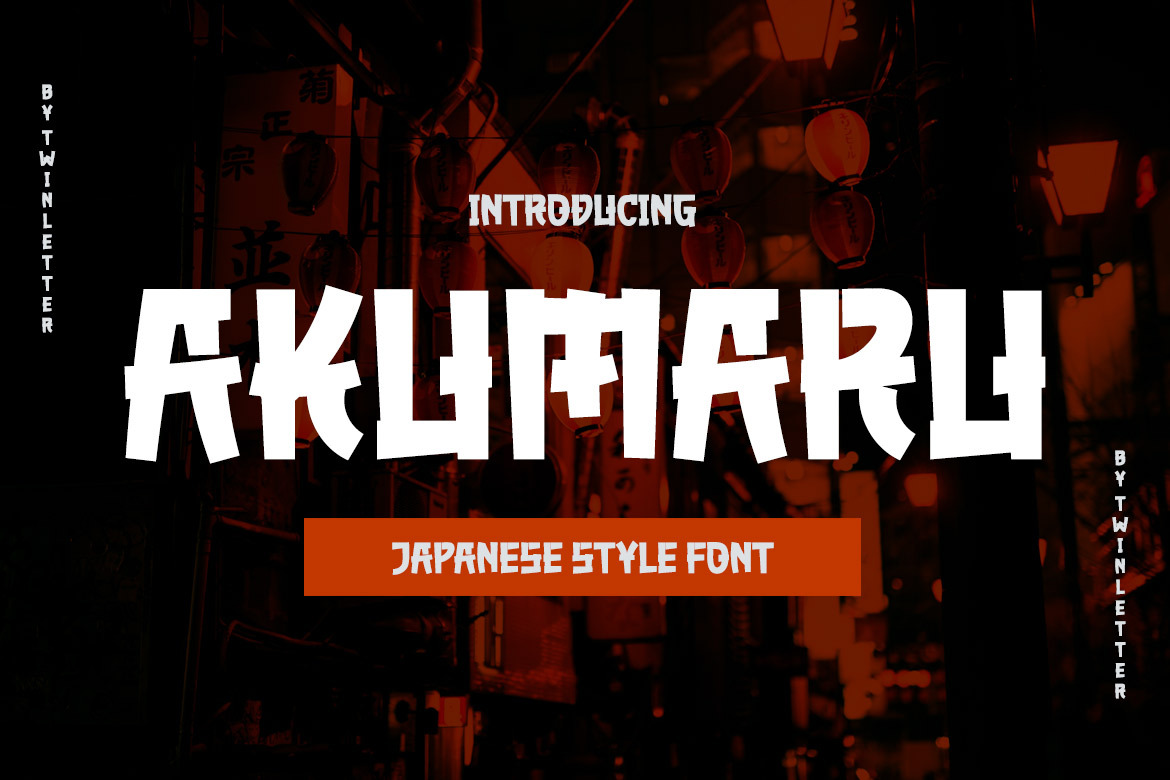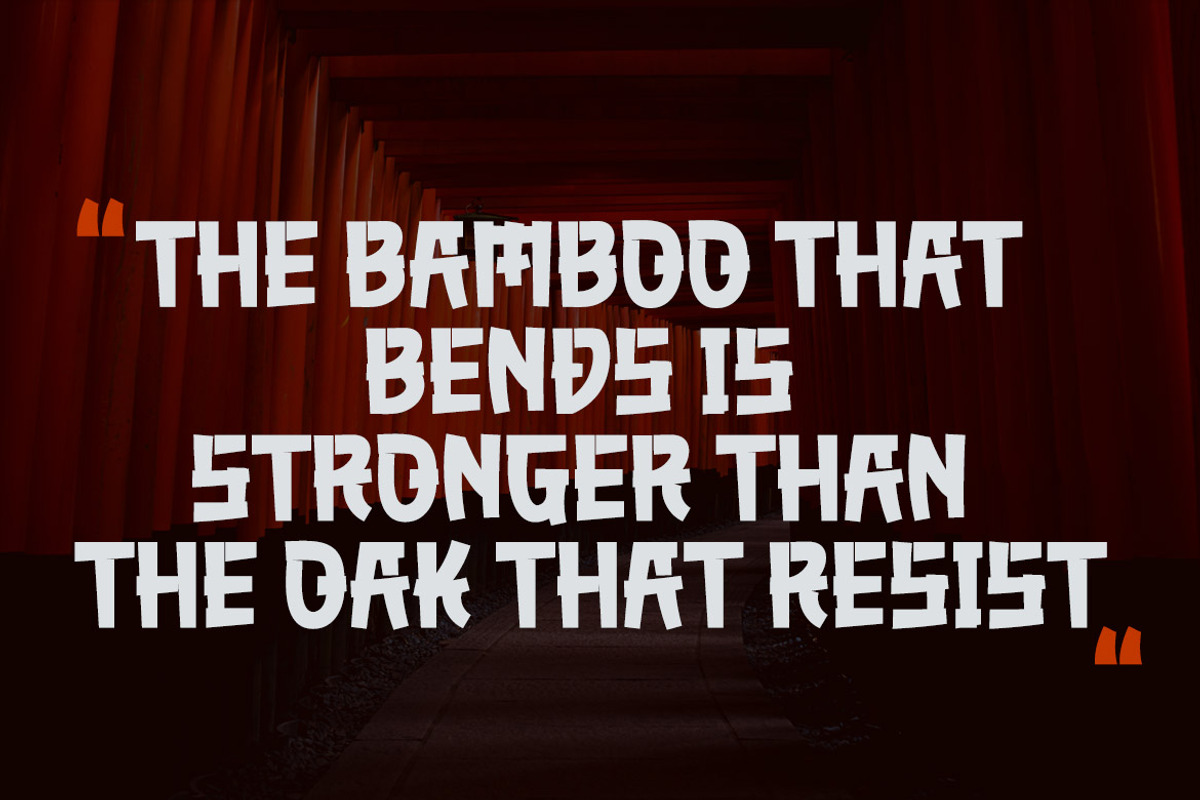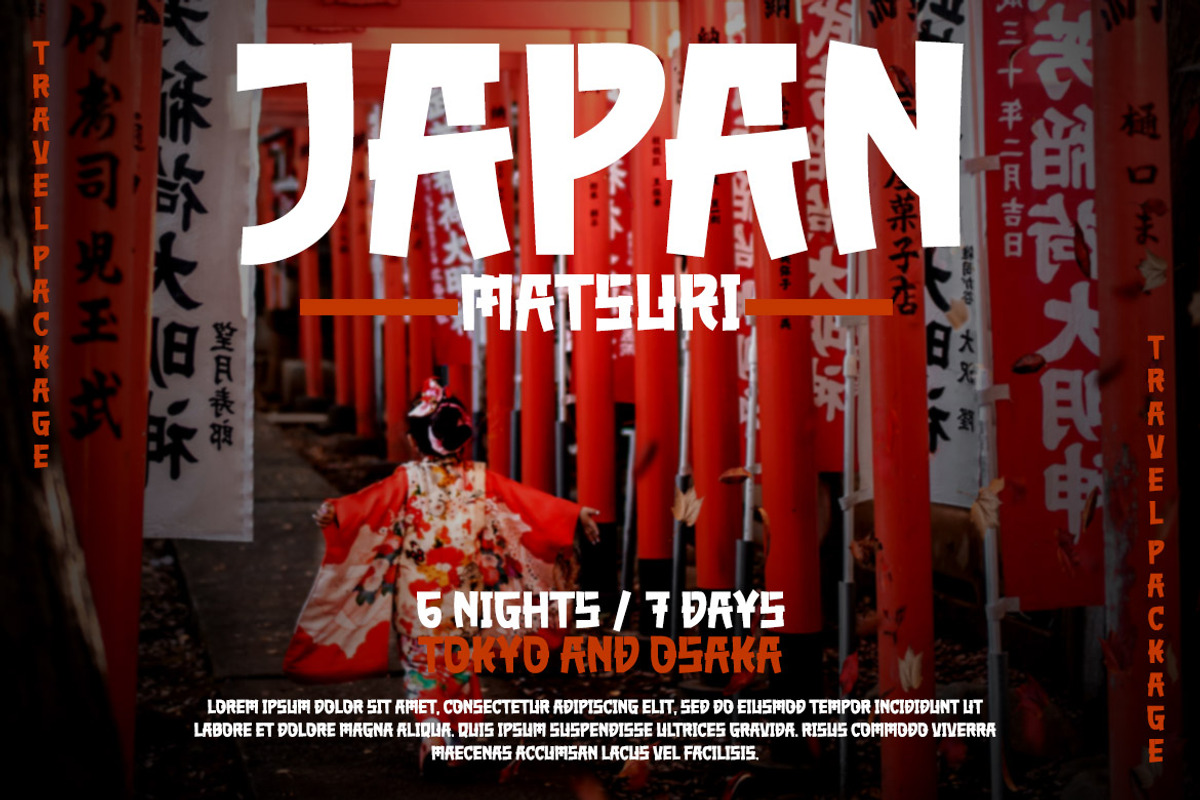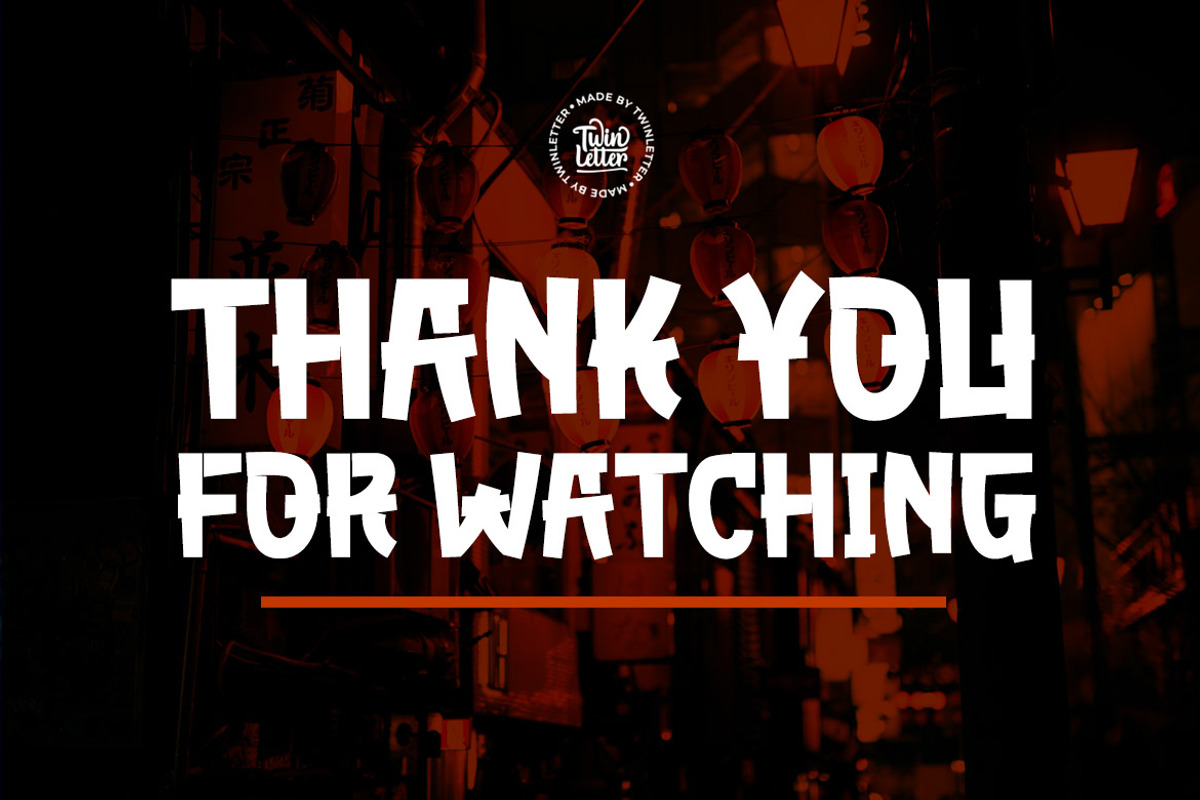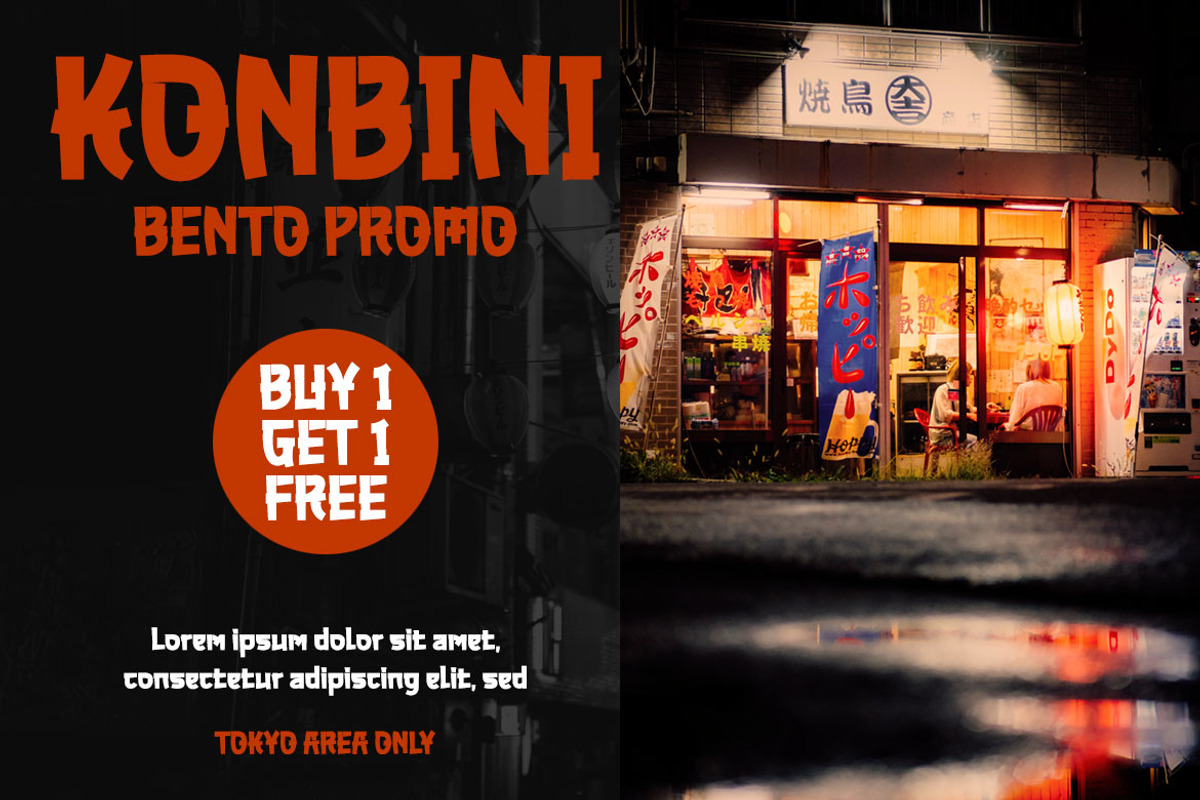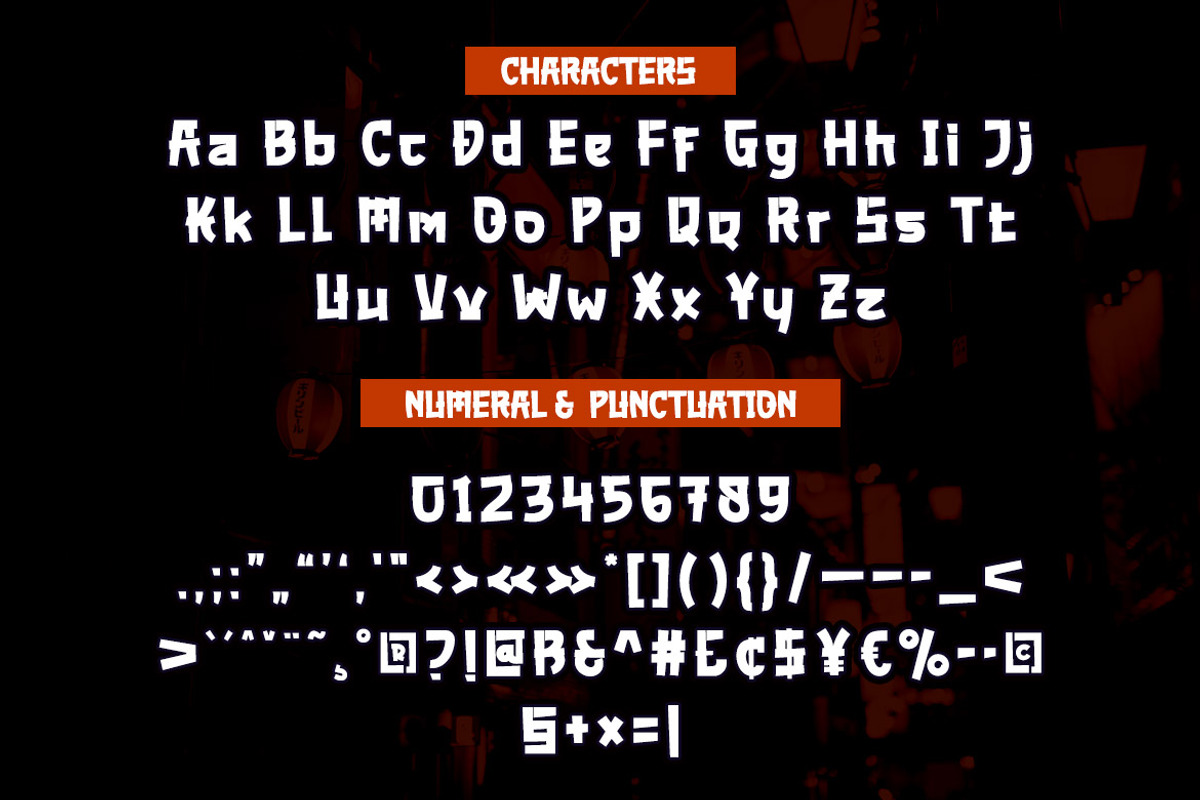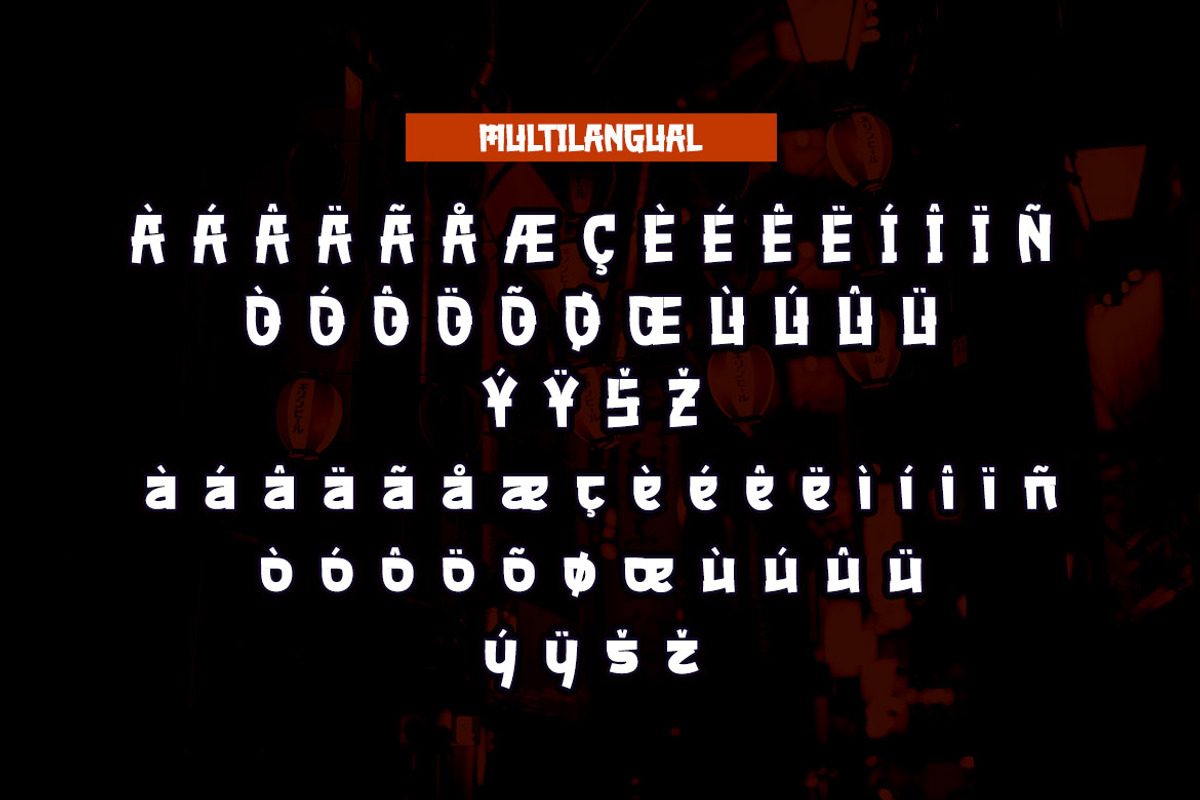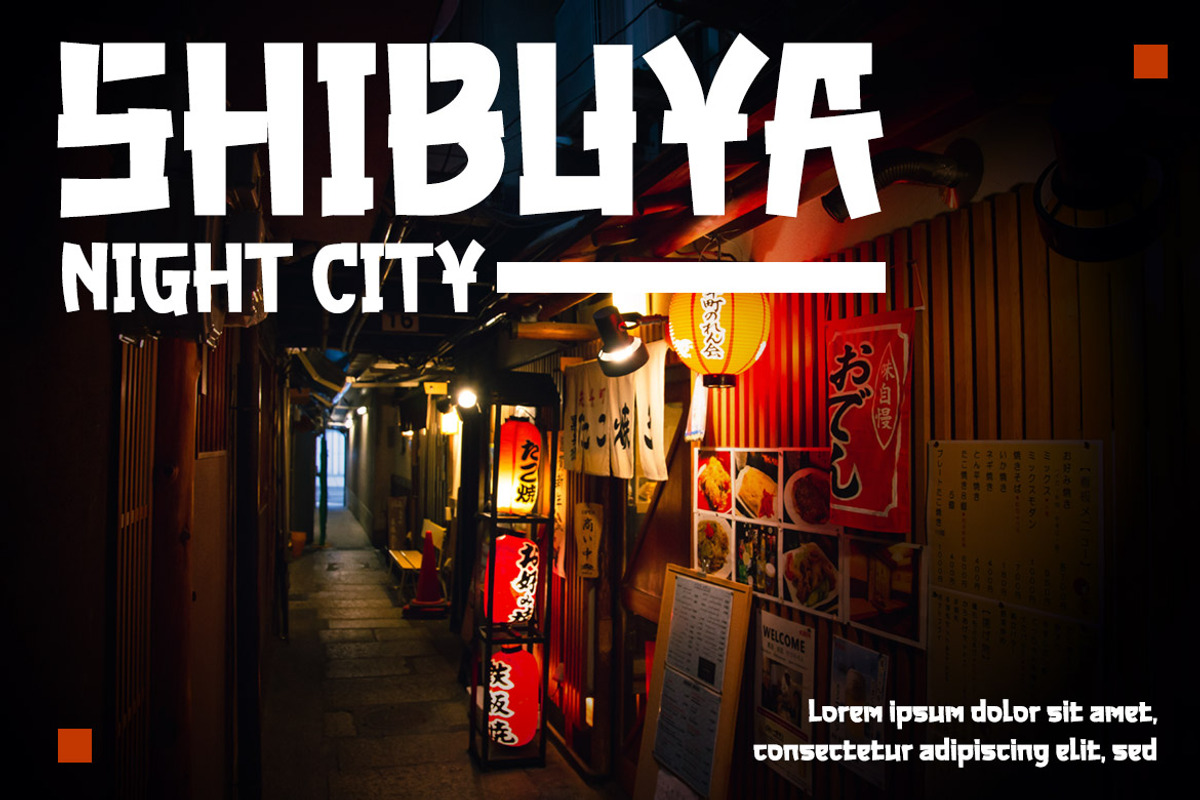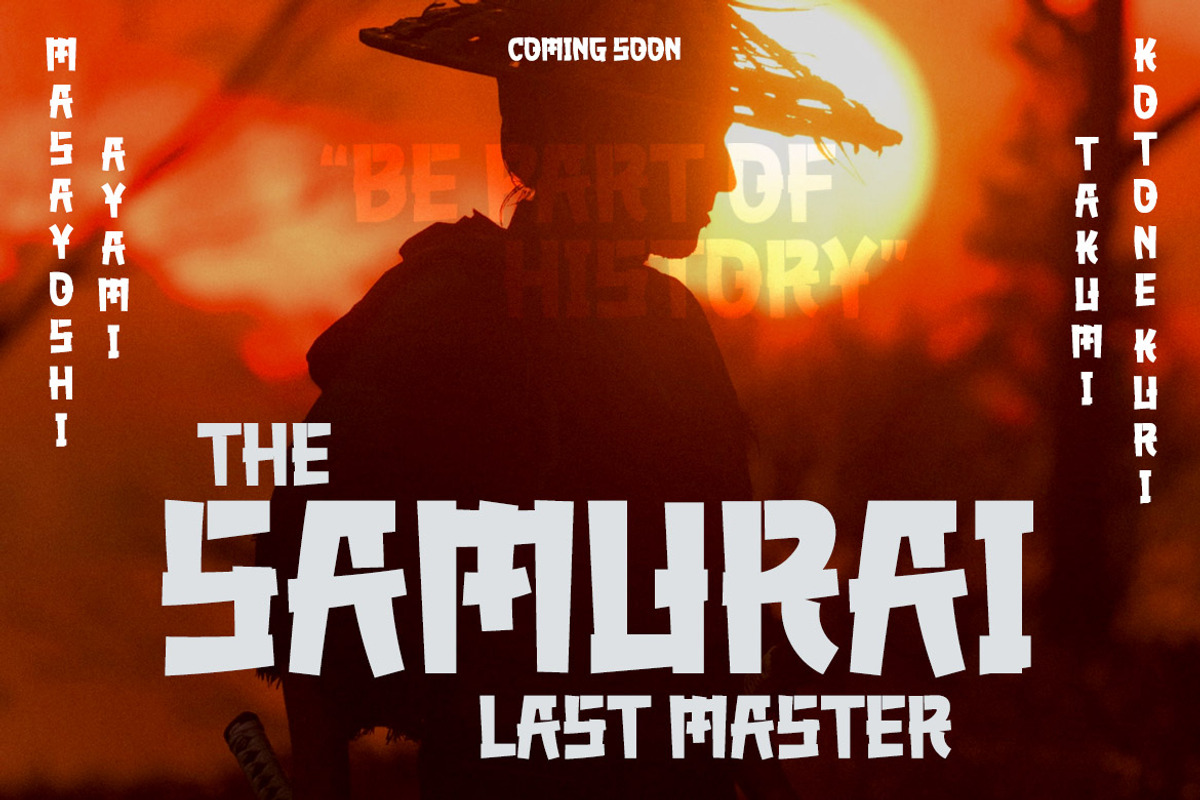
AKUMARU - Japanese style font
Akumaru, our newest font, is now available. In every area of the eye, there are typefaces made with unique and appealing shapes.
if you want your unique project to be charming, unique, gorgeous, and sophisticated enough to hypnotize the entire audience. Then this font should be used in your project. because the letters and words in this typeface have a gorgeous, elegant, and pleasant appearance.
Logotypes, food banners, branding, brochure, posters, movie titles, book titles, quotes, and more may all benefit from this font.
Of course, using this font in your various design projects will make them excellent and outstanding; many viewers are drawn to the striking and unusual graphic display. Start utilizing this typeface in your projects to make them stand out.